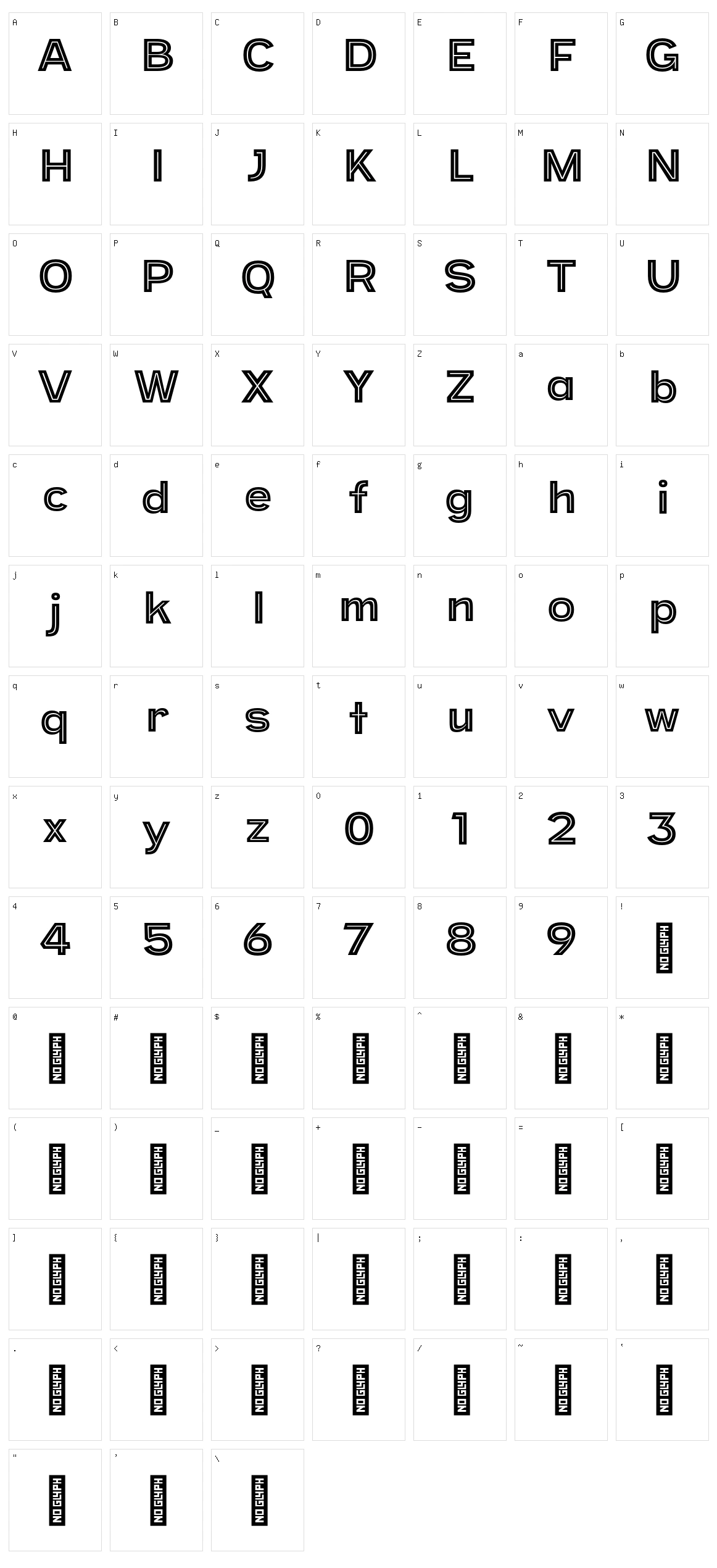
The free font Provoke is carefully designed by Parker Creative, showcasing a thoughtful balance of creativity and usability and falls under the Sans serif font style. When you download the ZIP file, it contains only 10.09 KB of font files, making it lightweight and quick to download. Please review the license details below to understand permitted usage and distribution rights. If license information is not available, we recommend using this font for personal projects only or contacting the author directly for commercial usage permissions.